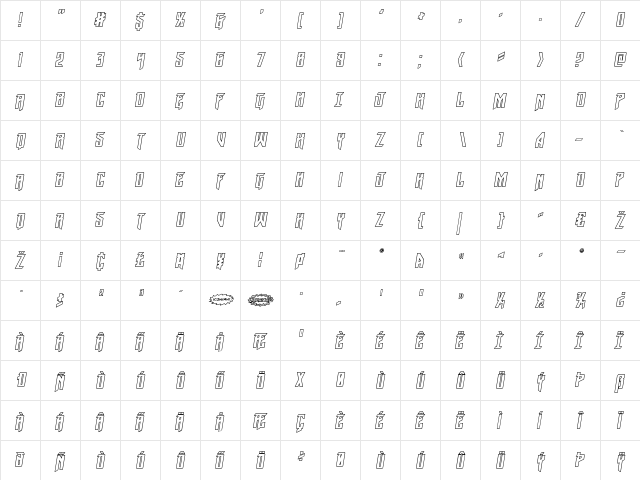
Winter Solstice Outline Italic Outline Italic
Design Context for Winter Solstice Outline Italic Typeface
Winter Solstice Outline Italic is built around its visual character rather than neutral utility — its distinctive forms are designed to make an impression at display sizes. The dynamic lean of this cut emphasises speed and emphasis in any layout.
Font Pairing: Pair with a clean neutral sans-serif for body copy to let Winter Solstice Outline Italic's character lead without overwhelming the composition.
Pro Tip: Use Winter Solstice Outline Italic exclusively at display sizes — it was designed to be seen, not read at length. Let a neutral companion handle body copy.